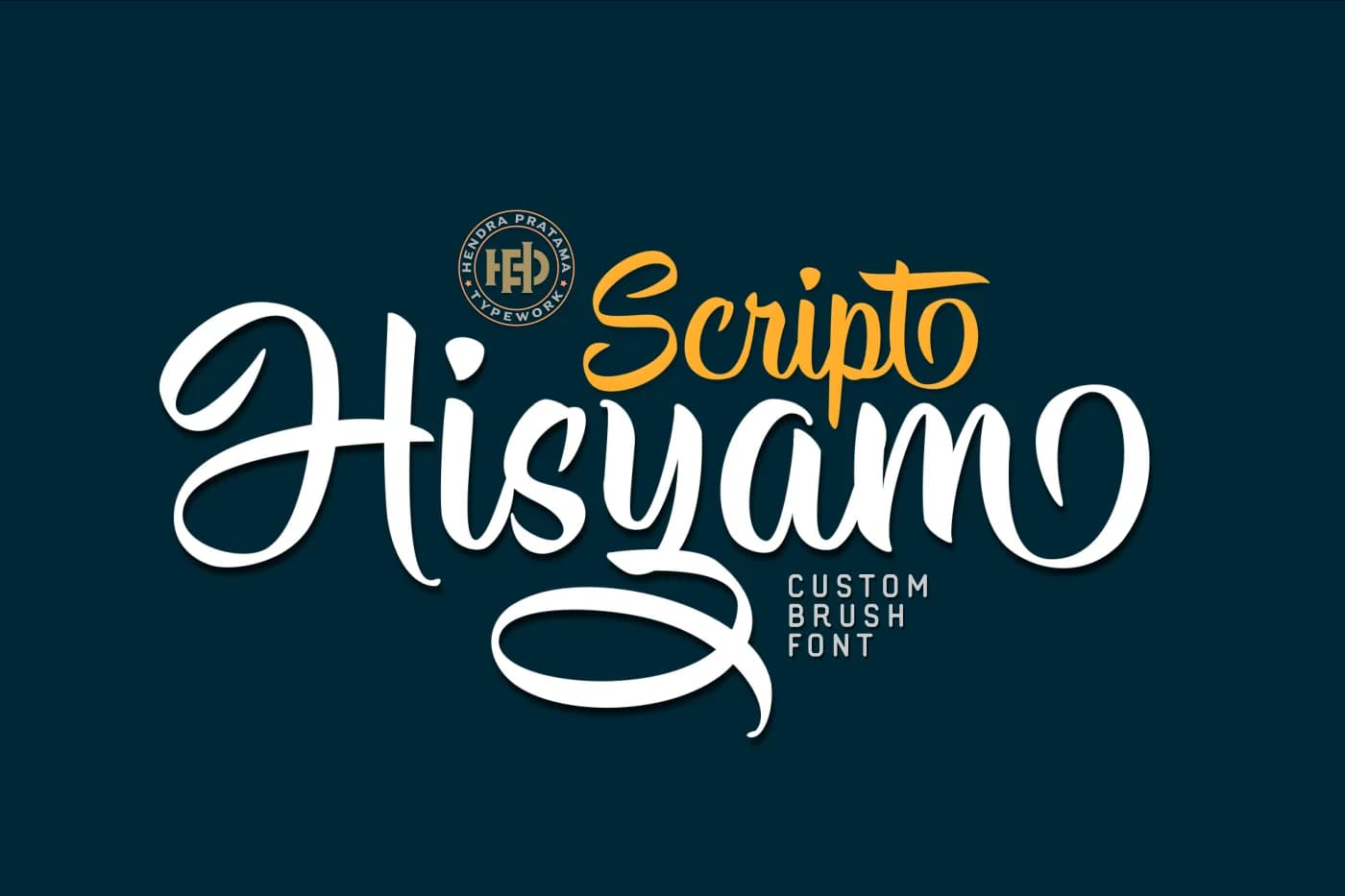
Hisyam by hptypework is a handwritten script that merges the warmth of authentic penmanship with the technical precision required for professional design applications. The typeface's flowing letterforms and organic strokes convey genuine character while maintaining strong readability across display sizes and body text. This balance between handcrafted artistry and functional reliability makes Hisyam equally effective in luxury branding contexts and intimate personal projects. The refined execution ensures its script character never compromises legibility or polish, allowing it to function across diverse creative applications.
Designers and artisans consistently choose Hisyam for wedding invitation suites, personalized stationery and gift tag sets, artisanal packaging for skincare and fragrance brands, and hand-lettered social media content designed to break through crowded digital feeds. Whether building a boutique brand identity, creating custom vinyl applications, or developing cohesive branding systems, the script's sophisticated letterforms add intentionality and care that generic typefaces cannot provide. The comprehensive character set works seamlessly across design software and cutting platforms, giving creators the flexibility to explore both digital and physical production methods without compromise. Discover Hisyam on Creative Fabrica and invest in a typeface that brings authentic character and refined craftsmanship to your creative work.
Hisyam Font is a script font that shines as a display or heading face. Pair it with a clean sans-serif or serif font for body text β the contrast creates a clear hierarchy while the two styles stay balanced and easy to read.